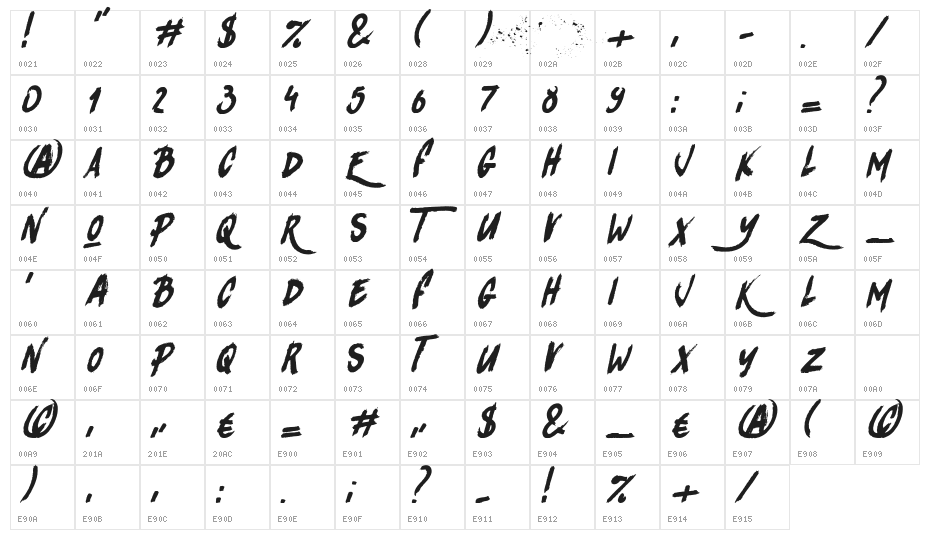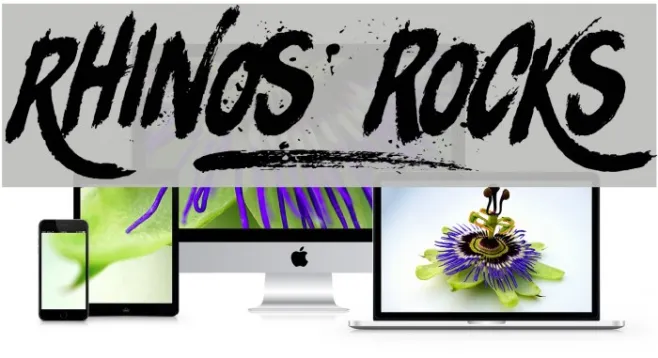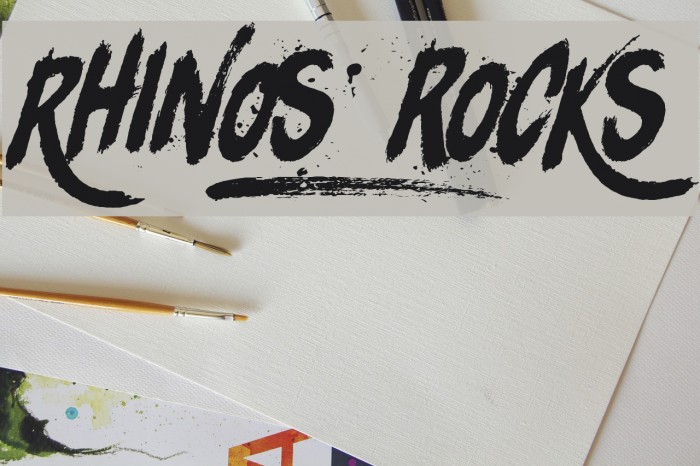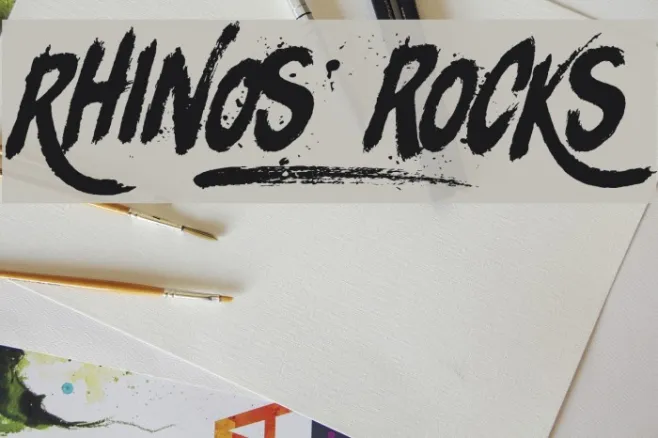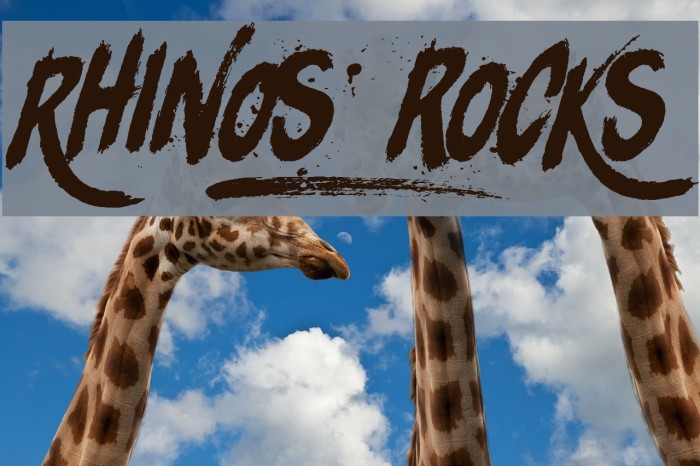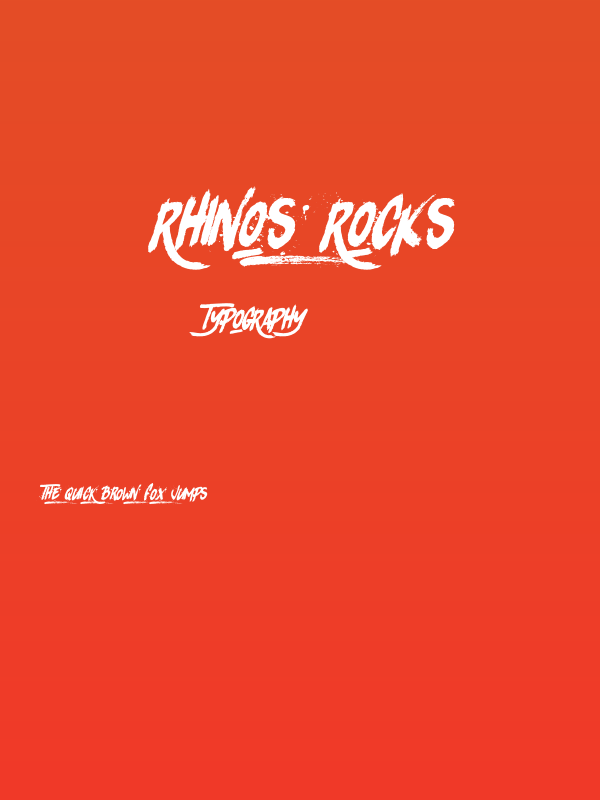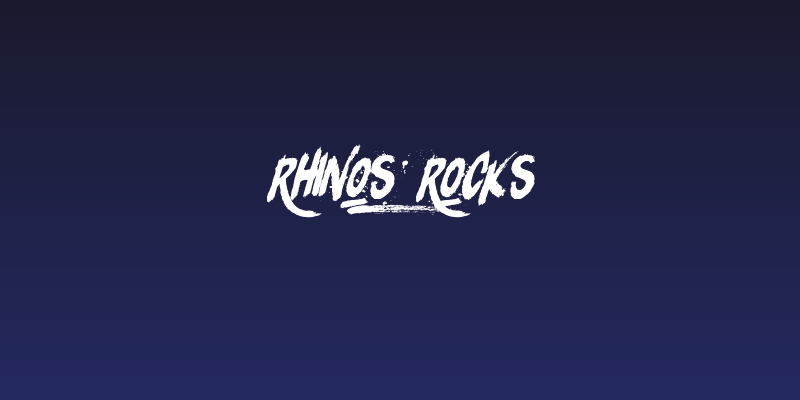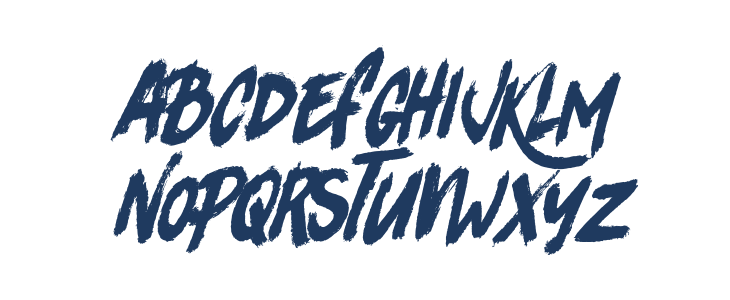
Rhinos rocks Font
Rhinos rocks Description
This font exudes a bold and energetic style, characterized by its brush-like strokes and dynamic movement. The letters are crafted with a rough, textured appearance, giving them a raw and expressive feel. Each character is unique, with varying thicknesses and angles that create a sense of spontaneity and artistic flair. The uppercase and lowercase letters maintain a consistent style, while the numerals and special characters complement the overall aesthetic. This font is ideal for projects that require a strong visual impact and a touch of creativity.
Proposed ProjectsIdeal for posters, album covers, branding, and any creative project needing a bold statement.